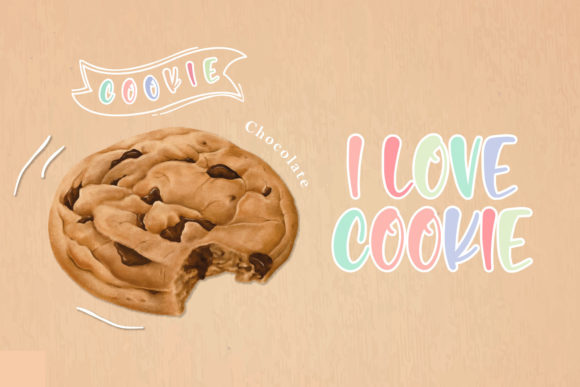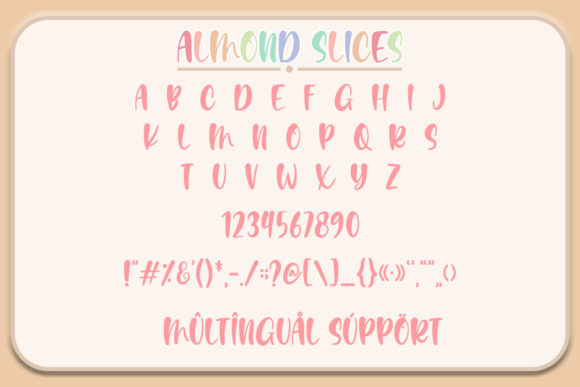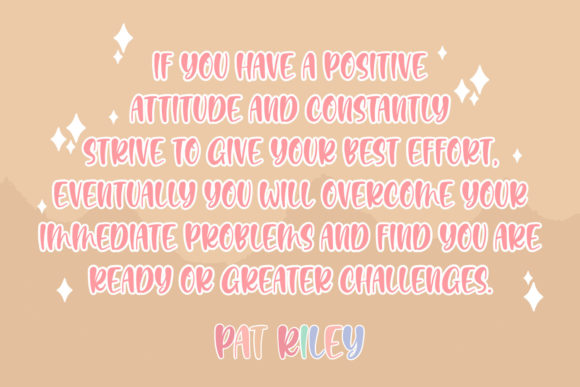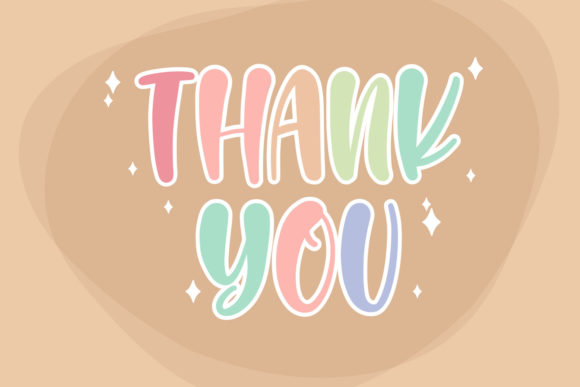
Discovering the Perfect Font for Your Next Project
Remember the feeling of rummaging through your grandmother’s old art supplies, uncovering a hidden treasure trove of colorful markers, glittery stickers, and of course, a stash of handwritten fonts? For many of us, those moments sparked a love for creativity that has stayed with us to this day.
As designers, we’re always on the lookout for the perfect font to bring our ideas to life. That’s where Almond Slices Font comes in – a charming, handwritten font that embodies playfulness and authenticity. Whether you’re working on a children’s activity or a school project, Almond Slices Font is the perfect choice to add a touch of whimsy and personality.
Almond Slices Font Key Features
- Font Family: Almond Slices Font is a unique, hand-drawn font family designed to evoke a sense of whimsy and playfulness.
- Character Set: Includes a comprehensive set of characters, including uppercase and lowercase letters, numbers, punctuation marks, and special characters, making it suitable for a variety of design projects.
- Unique Characteristics: Features a distinctive, hand-drawn style with subtle imperfections and texture, giving it a warm and inviting feel.
Review of Almond Slices Font
Overall, I have mixed feelings about the Almond Slices Font. While it has its unique qualities, it also comes with some limitations that may affect its usability in certain projects.
- Uniqueness: Almond Slices Font is a one-of-a-kind font that can add a touch of personality to your designs.
- Playfulness: The font’s quirky design makes it perfect for playful and creative projects, such as children’s books or advertising campaigns.
- Legibility: Despite its unusual design, Almond Slices Font is relatively easy to read, making it a good choice for text-heavy projects.
- Limited versatility: Almond Slices Font may not be suitable for formal or professional projects, as its playful design may come across as unprofessional.
- Difficulty in scaling: The font’s unique design may become distorted when scaled up or down, which can affect its overall appearance.
Overall, I would recommend Almond Slices Font for projects that require a playful and creative touch. However, it’s essential to consider its limitations and use it judiciously to achieve the desired effect.
The Almond Slices Font is ideal for creative and whimsical designs. Use it to create eye-catching headings, titles, or quotes. Experiment with different font combinations and sizes to add visual interest to your designs.
Alternatives to Almond Slices Font
Great Vibes Font is a modern, elegant script font suitable for headings, titles, and quotes. It is ideal for use in magazines, advertising, and packaging designs. Great Vibes Font has a similar aesthetic to Almond Slices Font but is more versatile and has a wider range of styles.
Comparison to Almond Slices Font: While both fonts have a whimsical feel, Great Vibes Font is more refined and sophisticated. Almond Slices Font has a more casual, handwritten look.
Carolyna Pro Font is a beautiful, elegant script font perfect for use in branding, advertising, and editorial designs. It is ideal for creating a luxurious and sophisticated look. Carolyna Pro Font has a similar elegance to Almond Slices Font but is more formal and refined.
Comparison to Almond Slices Font: While both fonts have a high-end feel, Carolyna Pro Font is more formal and structured. Almond Slices Font has a more playful and casual look.
Alex Brush Font is a beautiful, elegant script font perfect for use in branding, advertising, and editorial designs. It is ideal for creating a sophisticated and elegant look. Alex Brush Font has a similar elegance to Almond Slices Font but is more refined and structured.